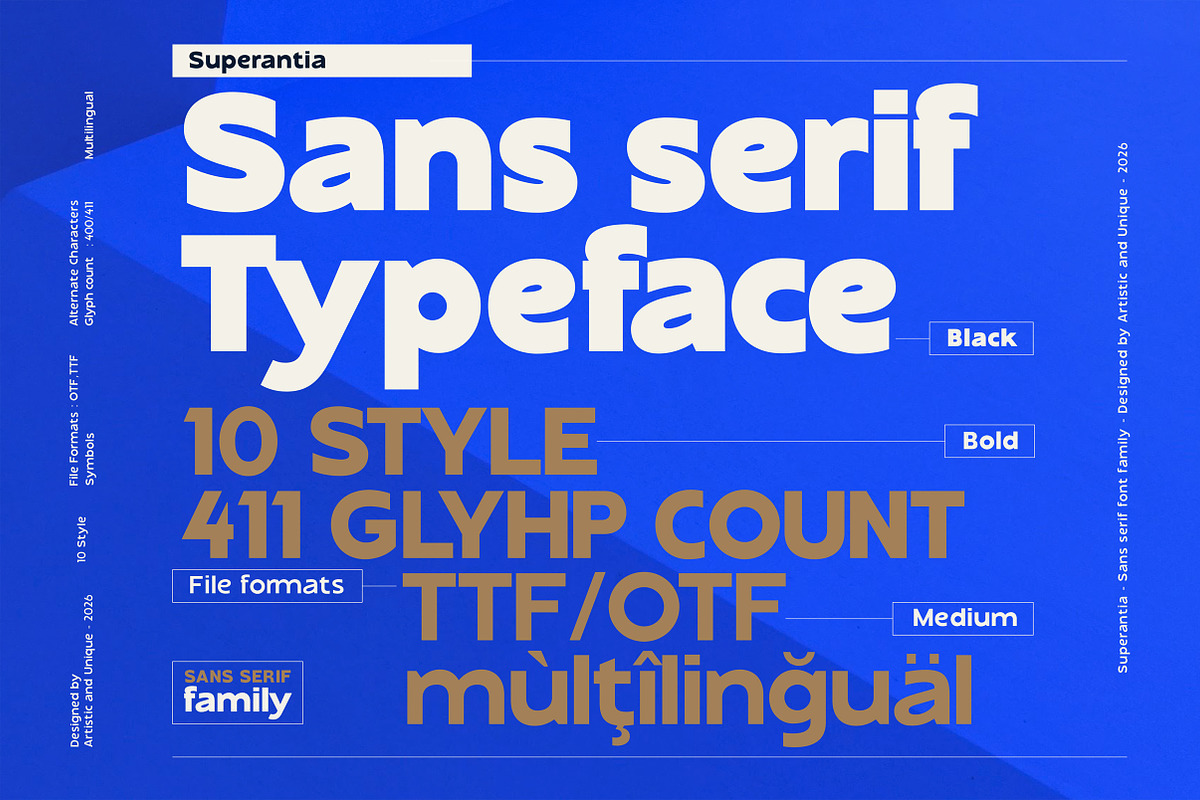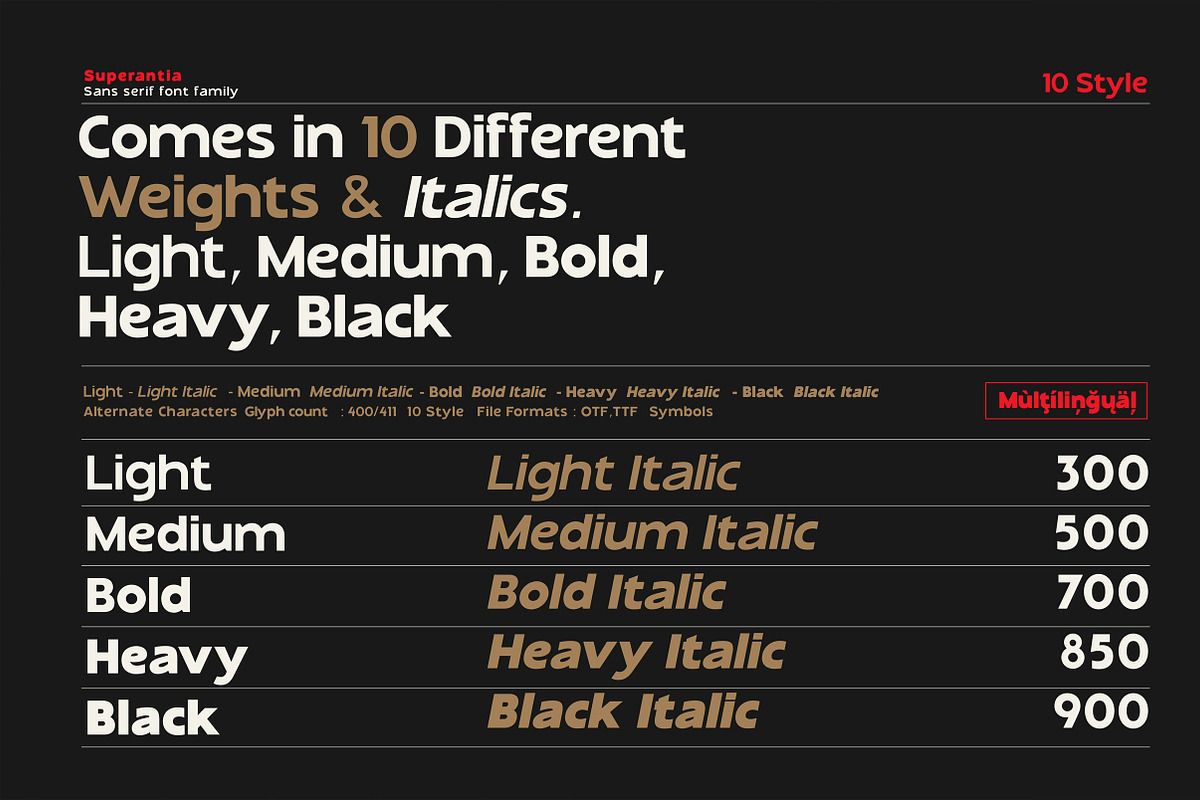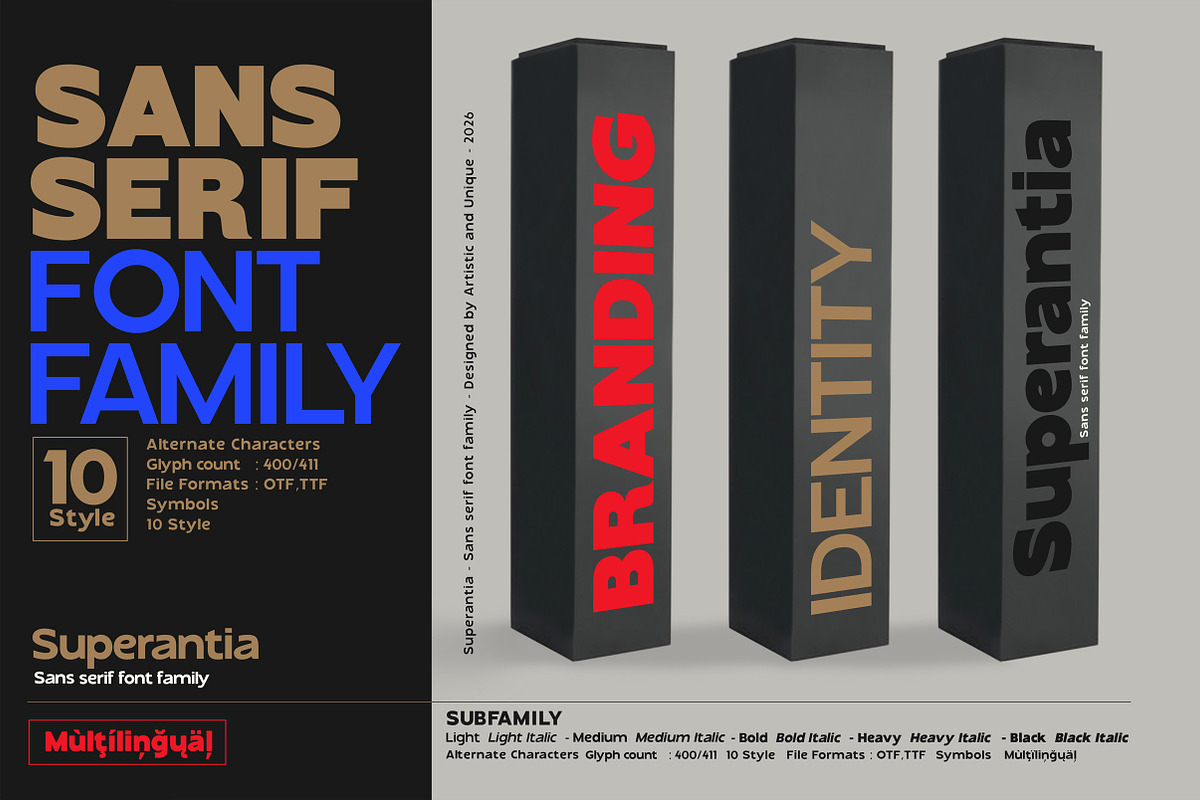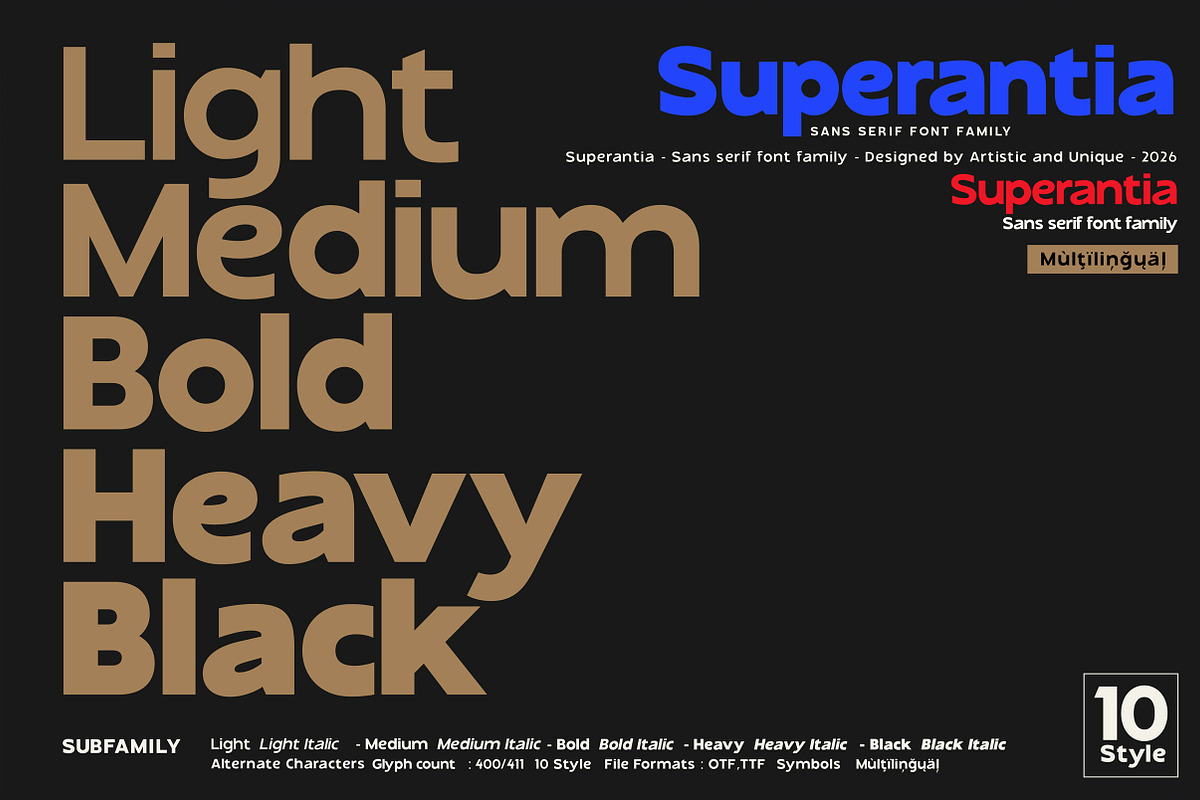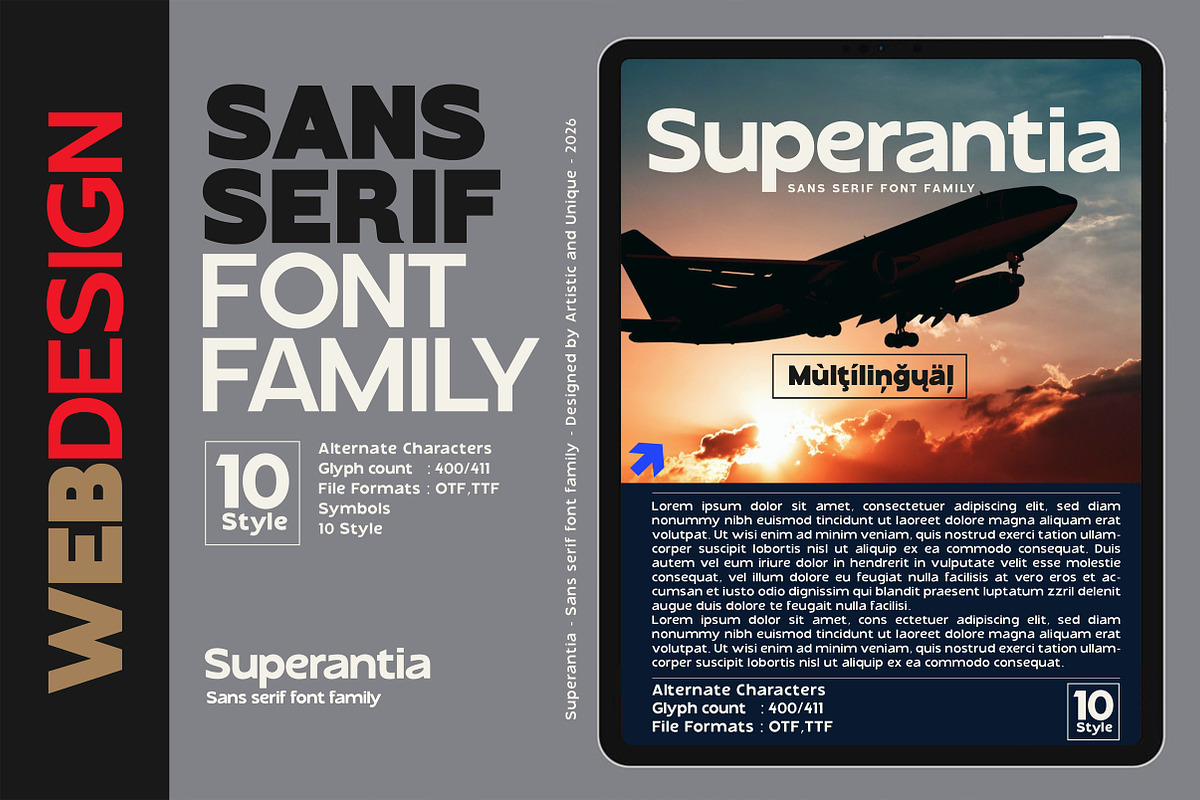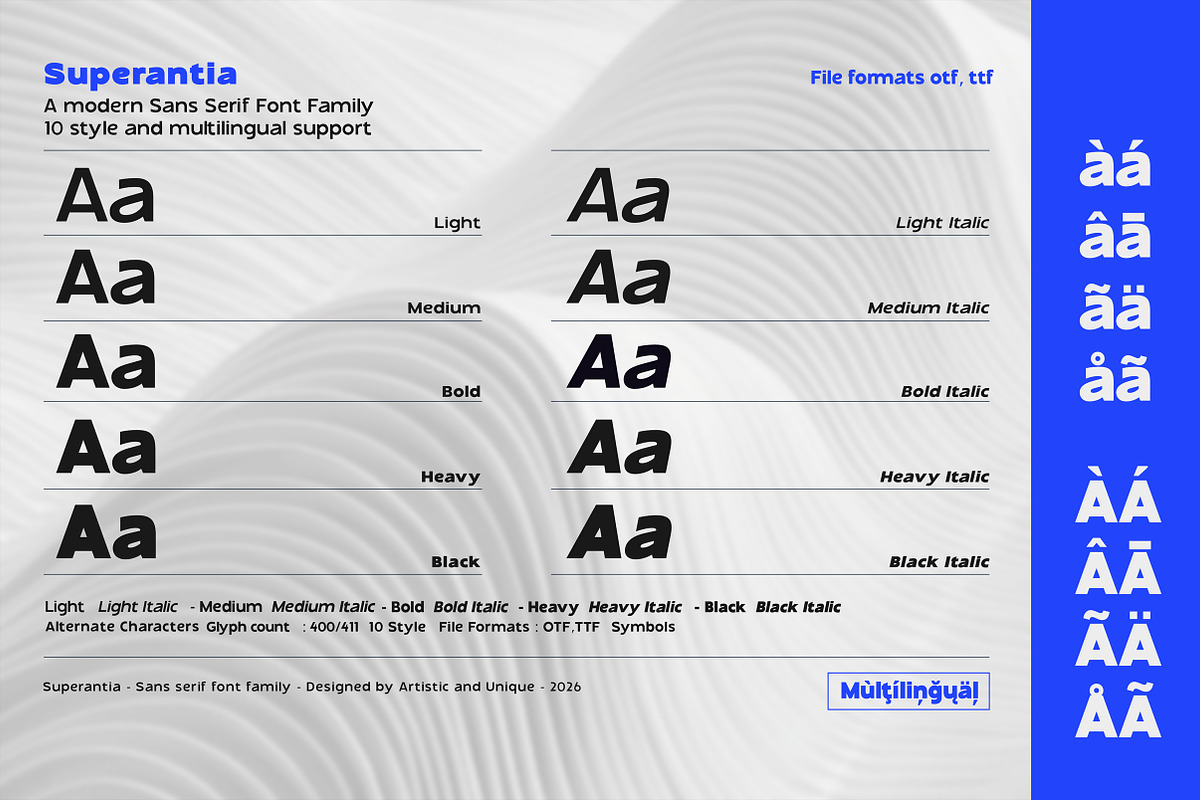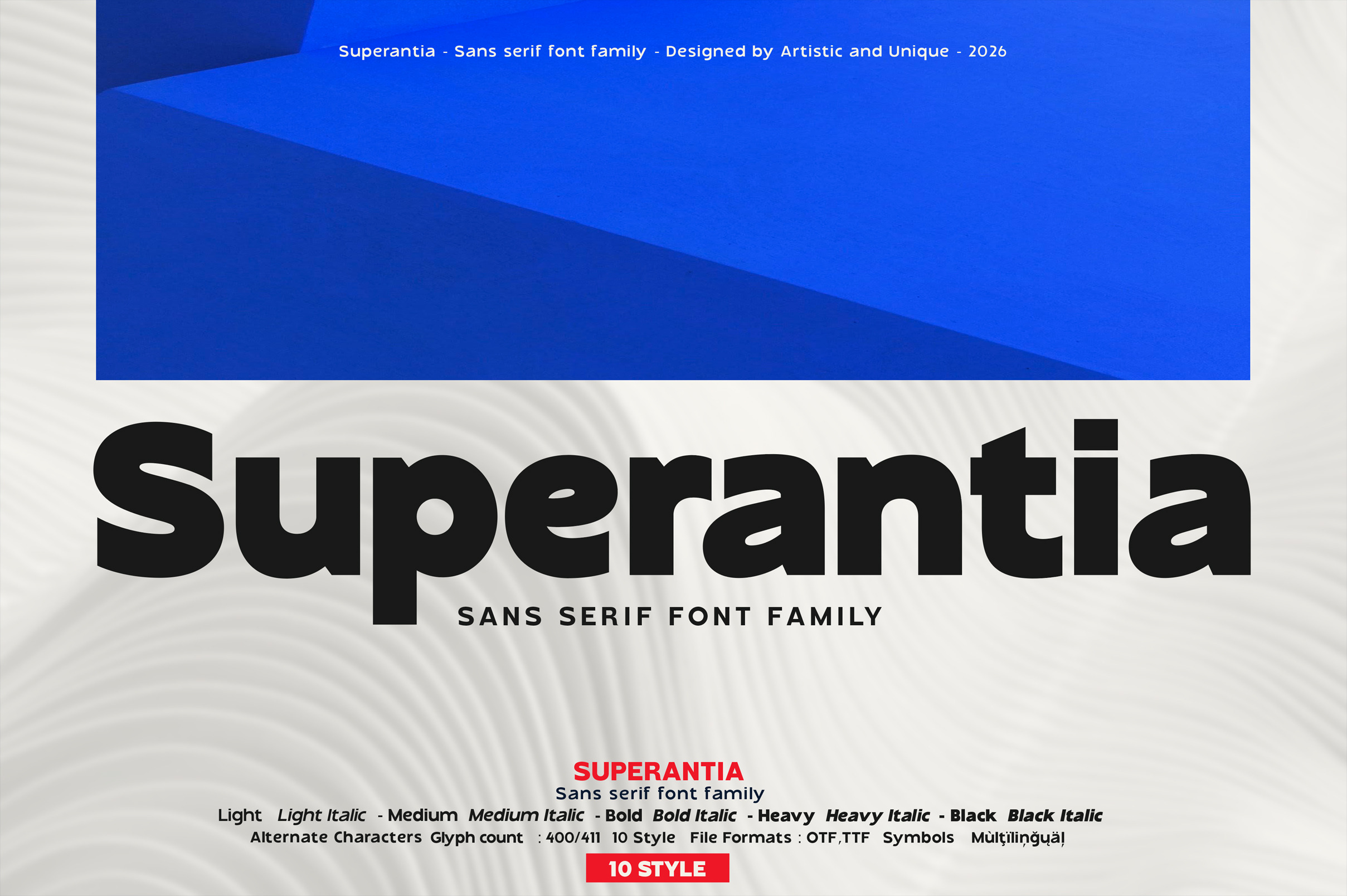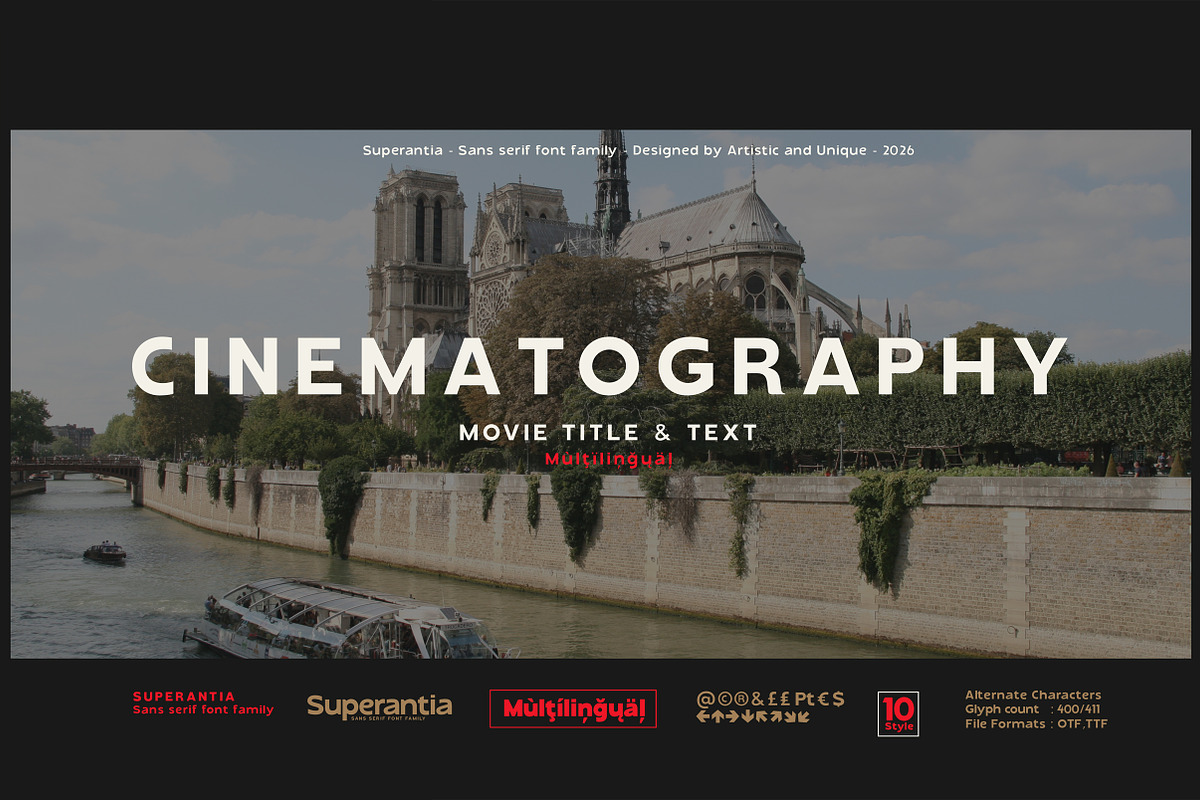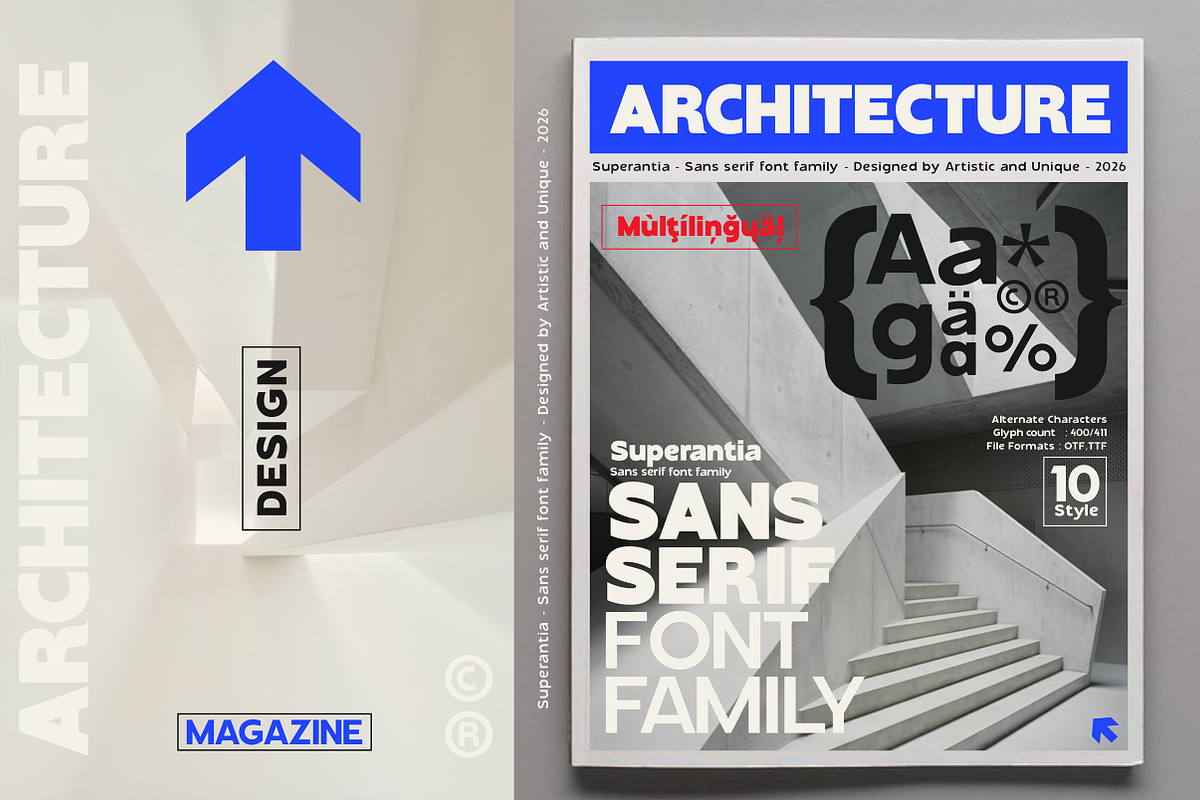
Superantia - Sans serif font family
Superantia - Sans serif font family - Multilingual support - 10 styles.
Superantia is a sans serif font family with 10 styles and multilingual support. It offers consistent readability across a wide range of creative work, along with stylistic character and understated elegance. Its clean look and modern structure make it suitable for logo design and branding where clarity and tone matter.
Lighter tones provide an elegant visual presence, while darker tones stand firm with consistent emphasis in headlines. Superantia integrates seamlessly into both digital and print projects, offering a timeless and innovative look for designers who want a refined, reliable family in their toolsets.
* Multilingual support,
* 10 different styles,
* Style alternatives,
* Rich character options (411),
* Perfect for branding and publication design,
* Suitable for web and logo design,
* Alternative characters and additional symbols.
Whether you're working on editorial layouts, books, magazines, newspapers, packaging, film titles and content, brand identity, websites, or logo design, Superantia offers a harmonious aesthetic blend for modern needs.